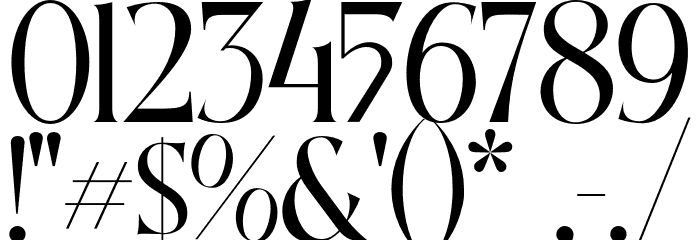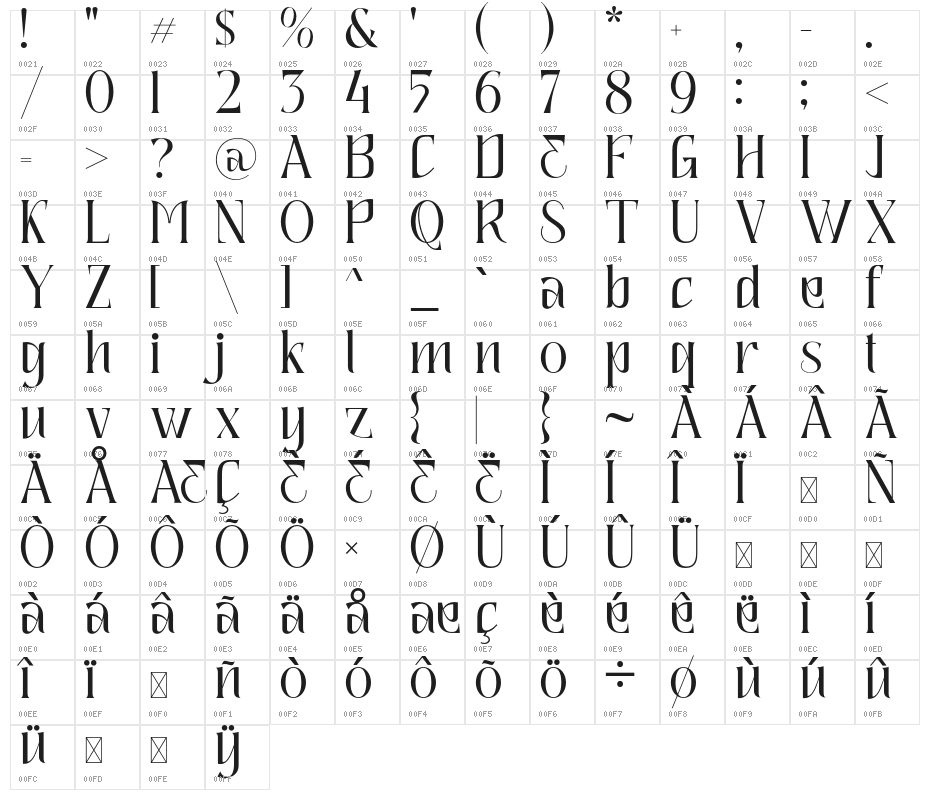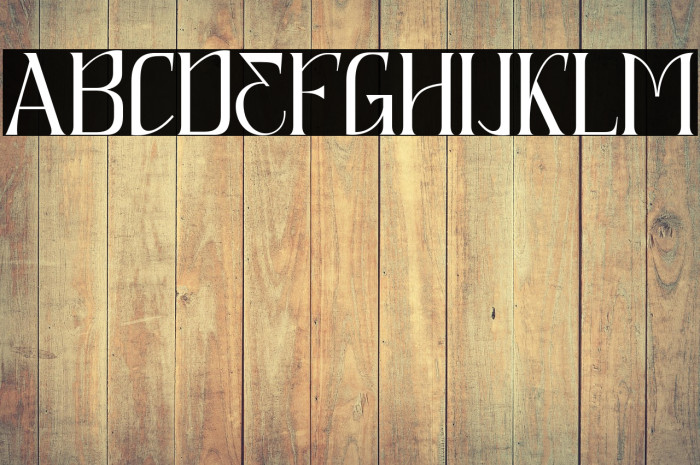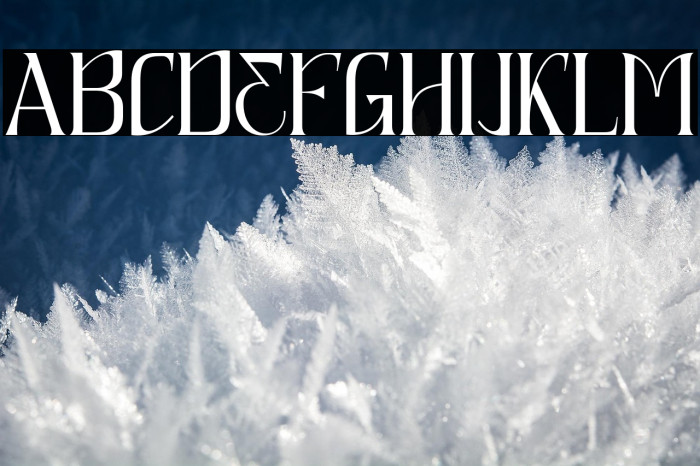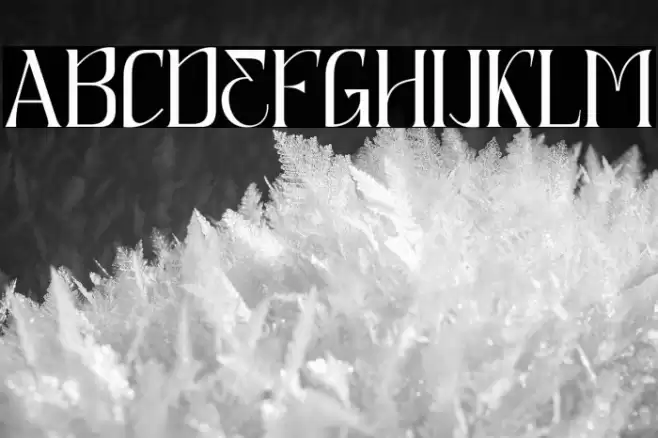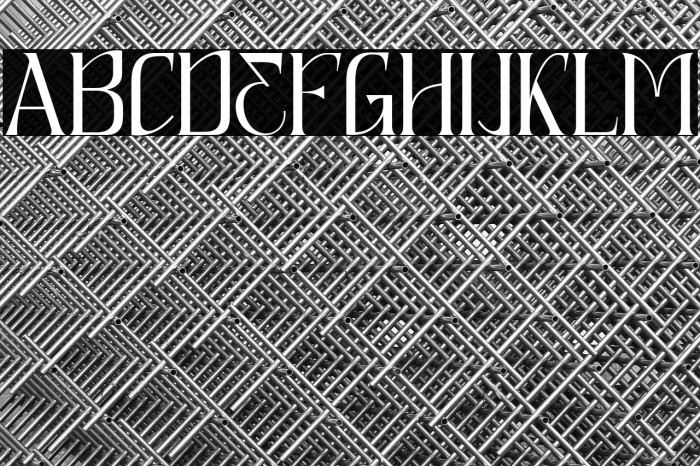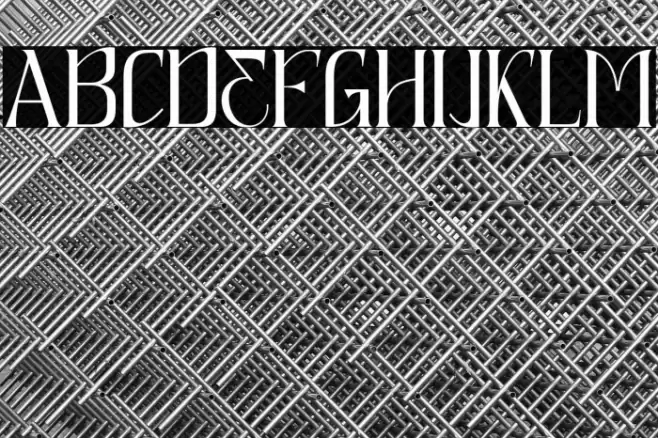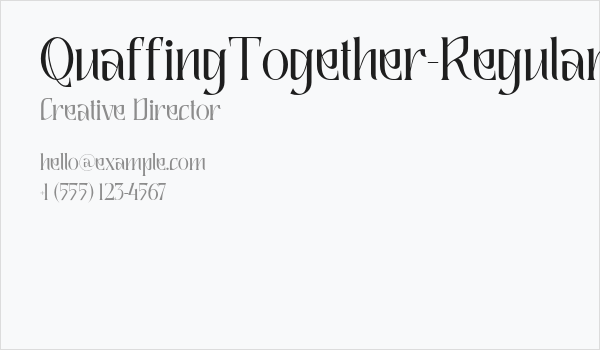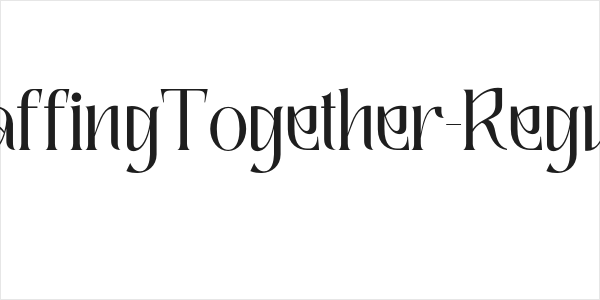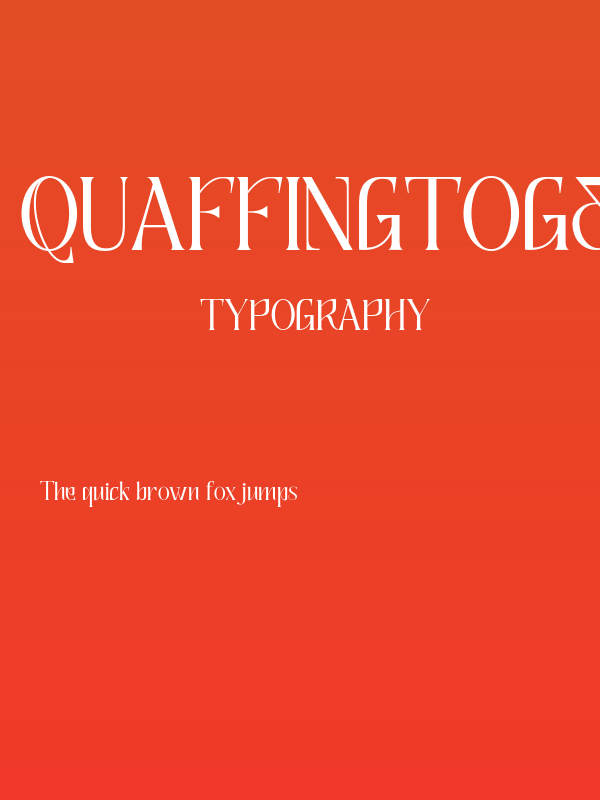
QuaffingTogether-Regular Font
QuaffingTogether-Regular Description
This font features a unique blend of modern and decorative elements, characterized by its tall, narrow letterforms and high contrast between thick and thin strokes. The uppercase letters exhibit a distinct flair with elongated serifs and curved lines, while the lowercase letters maintain a consistent style with a touch of elegance. The numerals are bold and prominent, ensuring readability. Special characters are designed with the same attention to detail, adding to the font's cohesive appearance. Overall, this font stands out for its artistic and sophisticated look, making it suitable for creative and stylish applications.